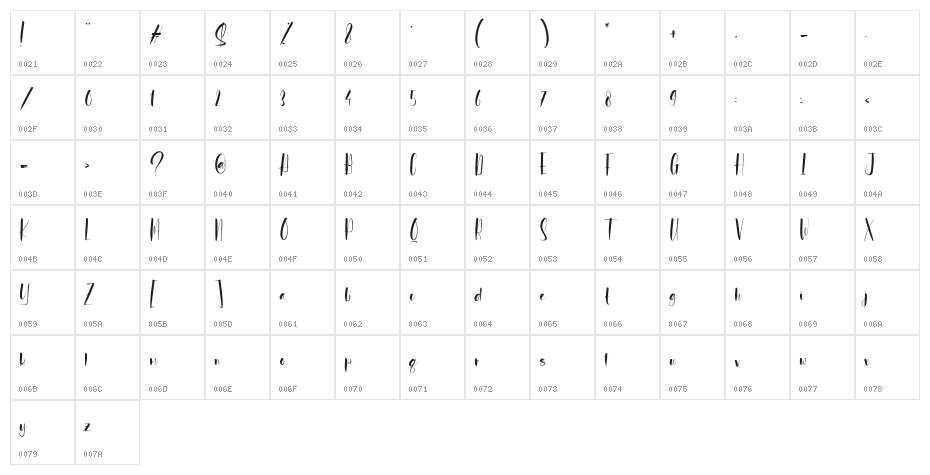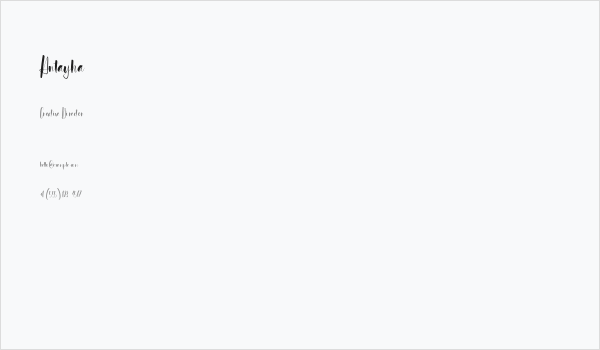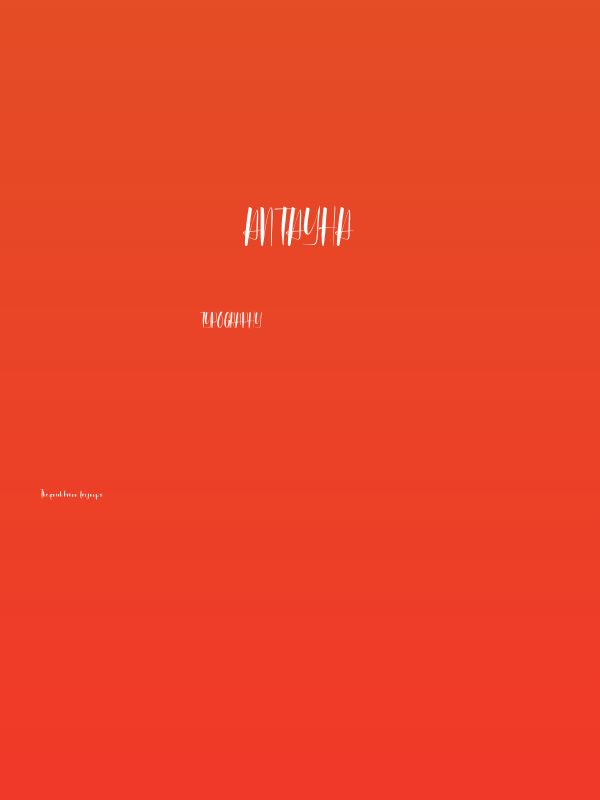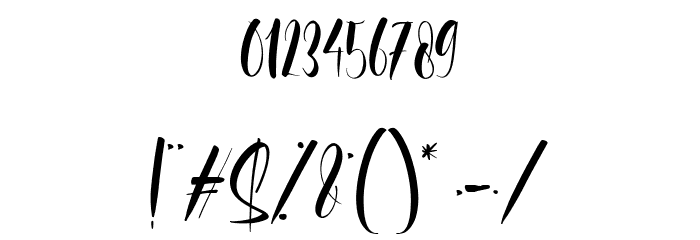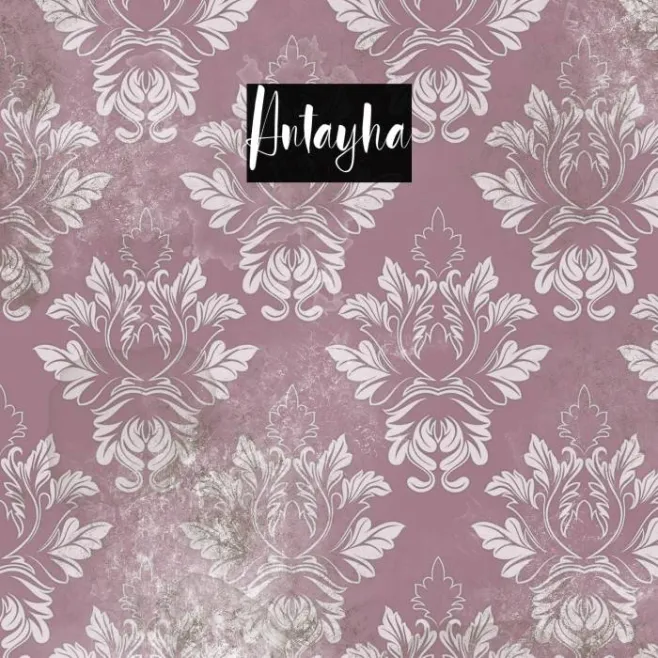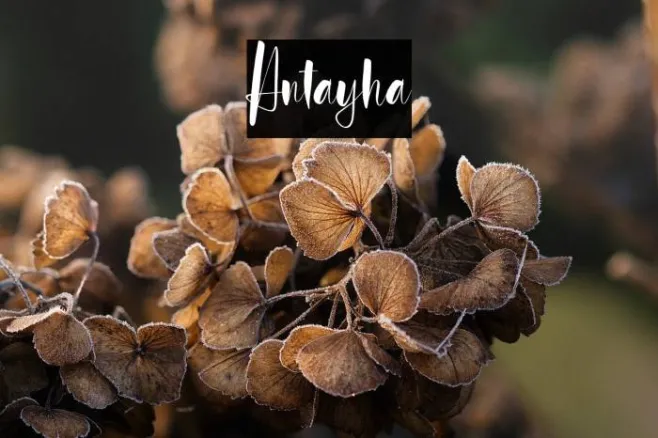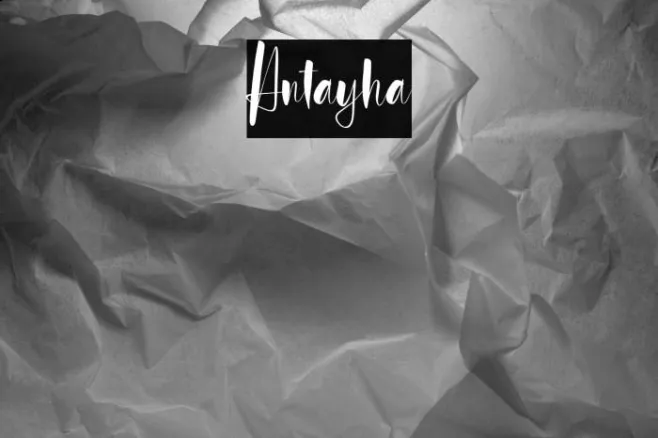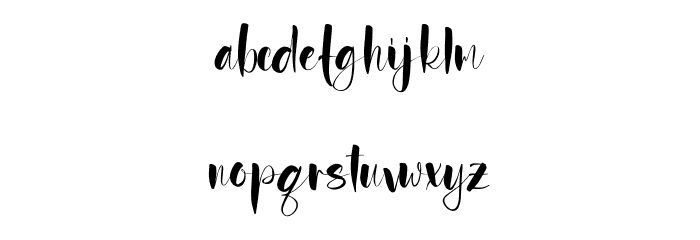
Antayha Font
Antayha Description
This font features a dynamic and expressive style, characterized by its flowing, cursive script. The uppercase letters are tall and elegant, with a slight slant that adds a sense of movement and grace. The lowercase letters are more compact, maintaining a consistent flow that complements the uppercase. The numbers and special characters retain the same fluidity, making them cohesive with the overall design. The strokes vary in thickness, providing a medium contrast that enhances readability while maintaining an artistic flair. This font is perfect for projects that require a personal touch, such as invitations, greeting cards, and branding materials.
| Proposed Projects | Ideal for invitations, greeting cards, branding, and artistic projects. |